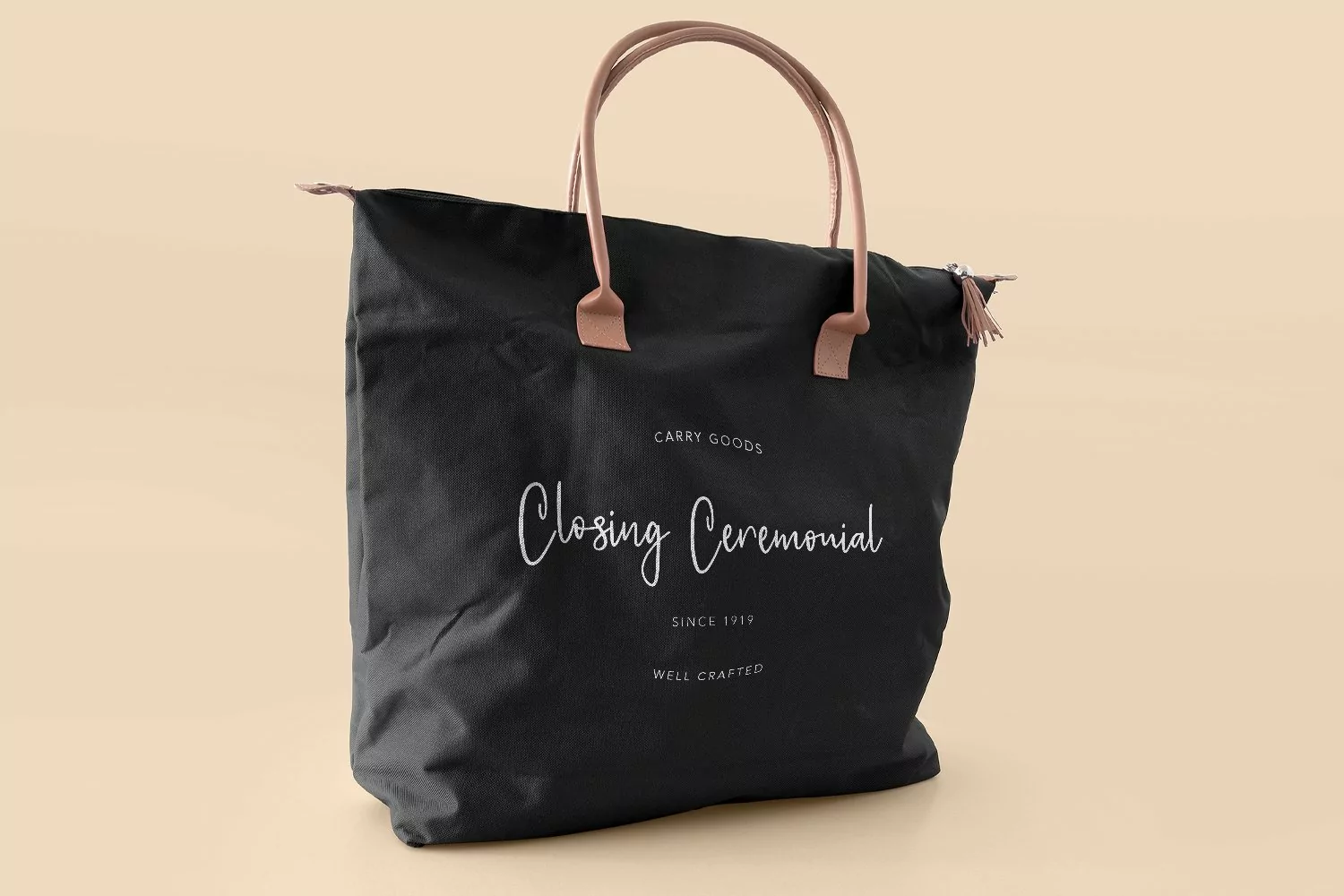
Homeytasty is casual handwritten font, with clean stroke, upright and fun character. It has Opentype features ligatures of character, To give you an extra creative work. Homeytasty handwritten font support multilingual more than 100+ language. This font is good for logo design, Social media, Movie Titles, Books Titles, a short text even a long text letter and good for your secondary text font with sans or serif. Make a stunning work with Homeytasty font.
Homeytasty